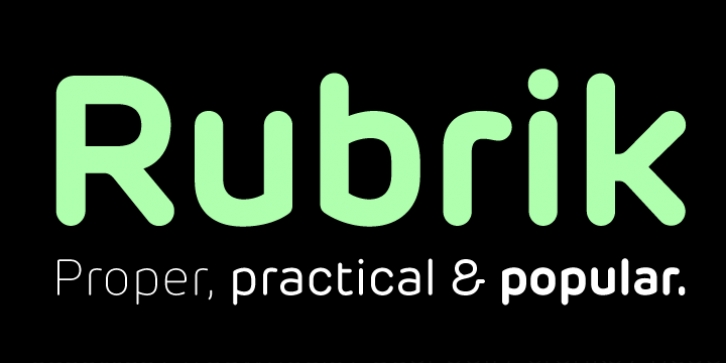
Rubrik was designed to describe a softer and more natural use of technology, and was inspired by the helpful feel of a manual typewriter. The typefaces on those old machines were designed to be proper, practical and popular. Rubrik’s simplified open forms resurrect that tone in a clear and modern way.
Rubrik has been created by Miles Newlyn, an internationally respected designer, having created identities for some of the world largest organizations, including Honda and Unilever. Newlyn is also an expert in corporate typography, designing typefaces for clients such as Citibank, British Telecom, and the Tate Gallery.